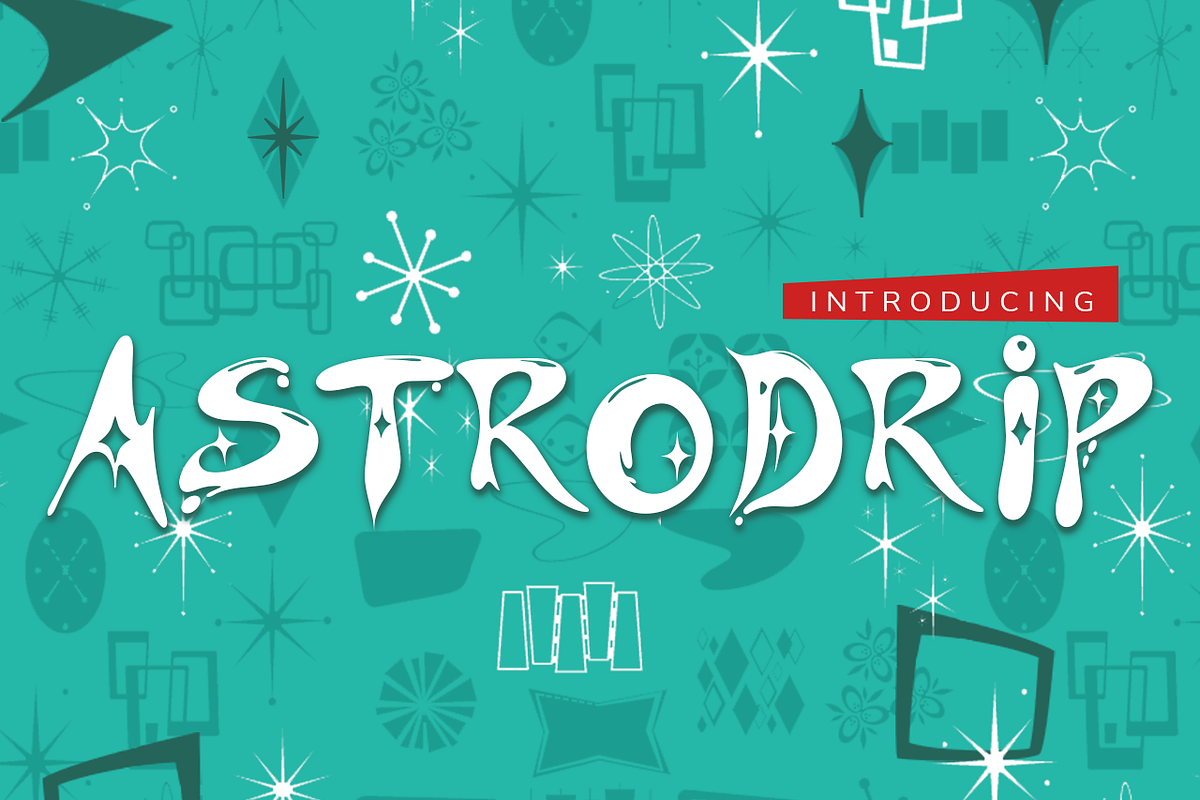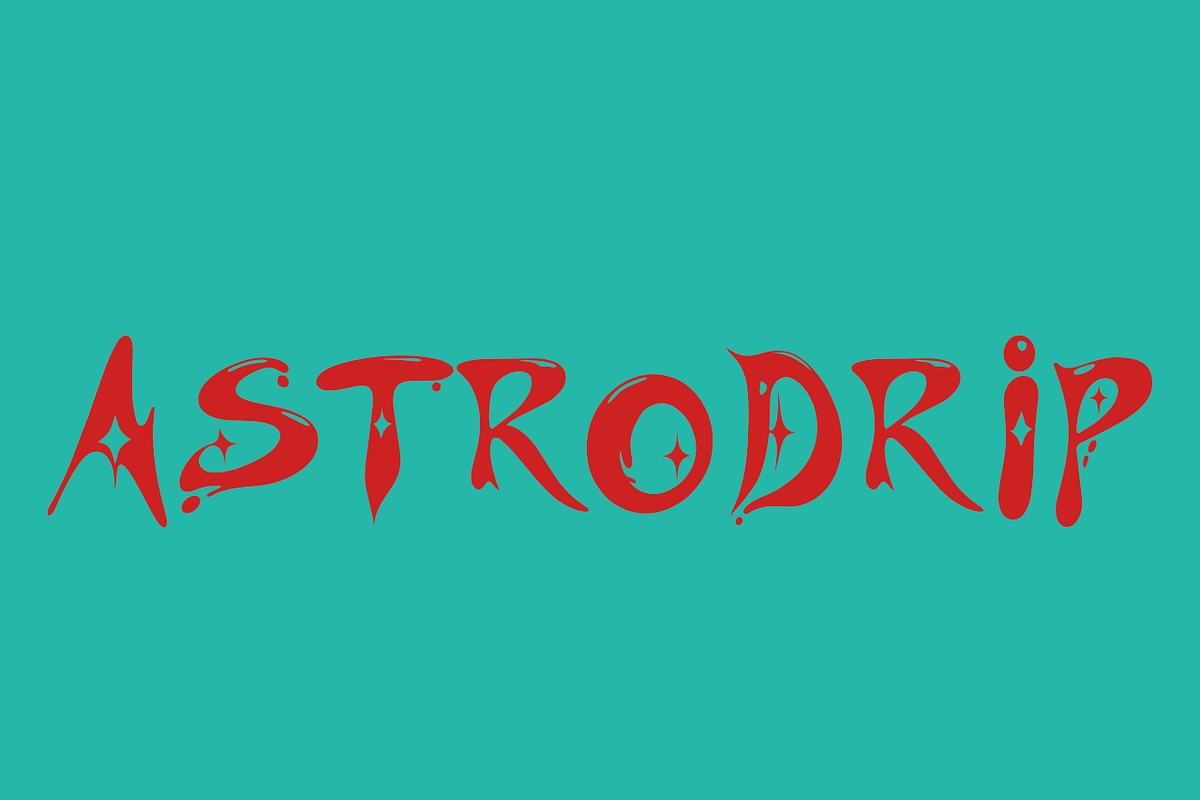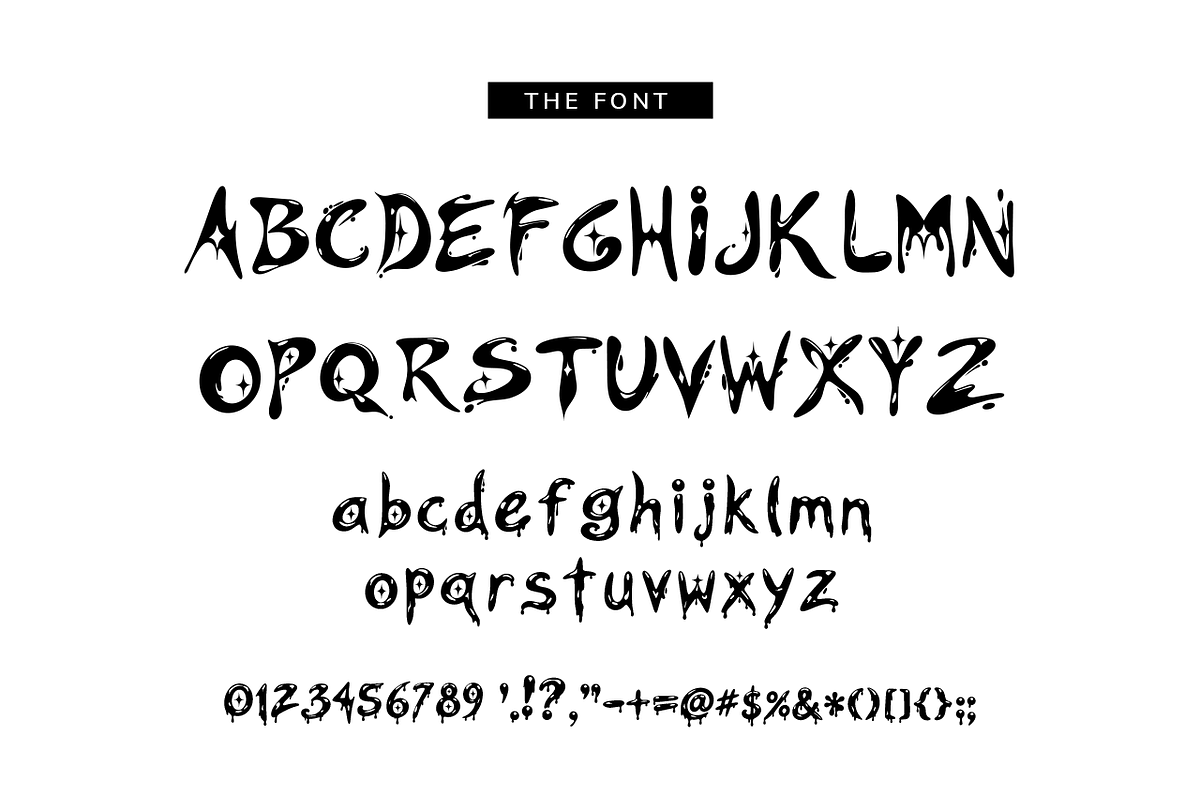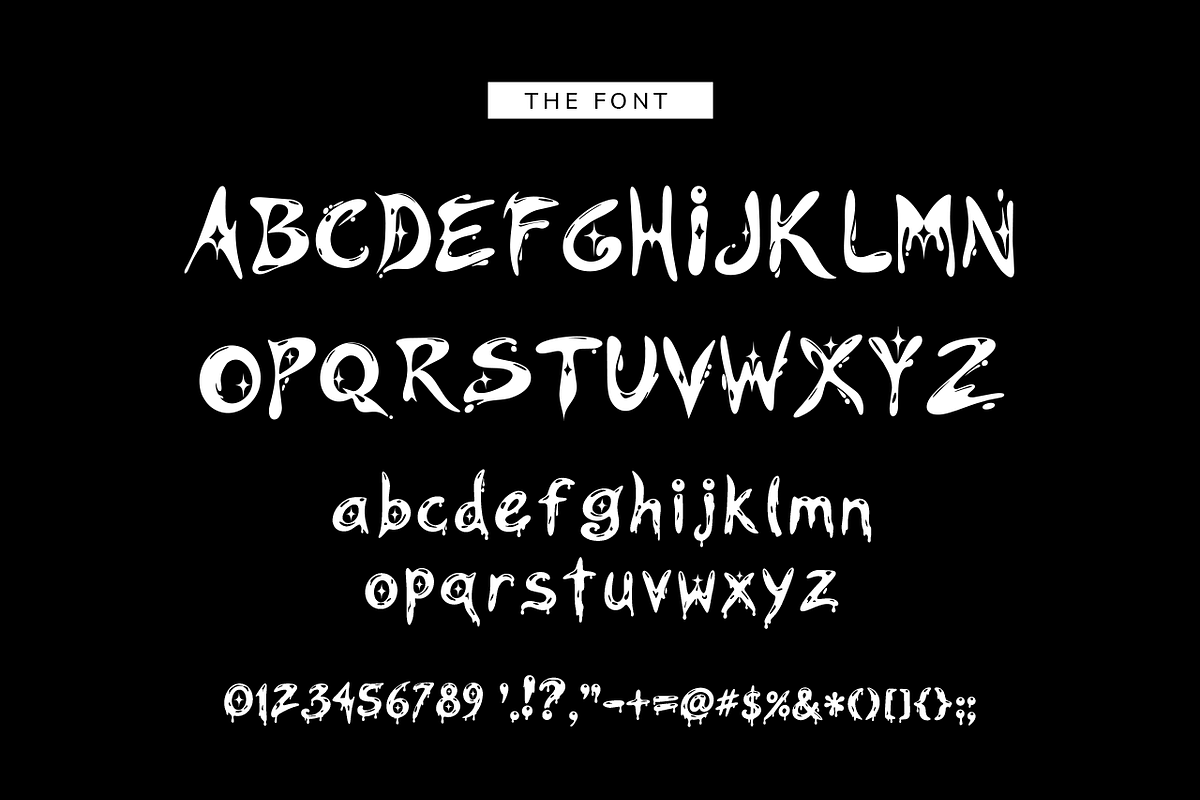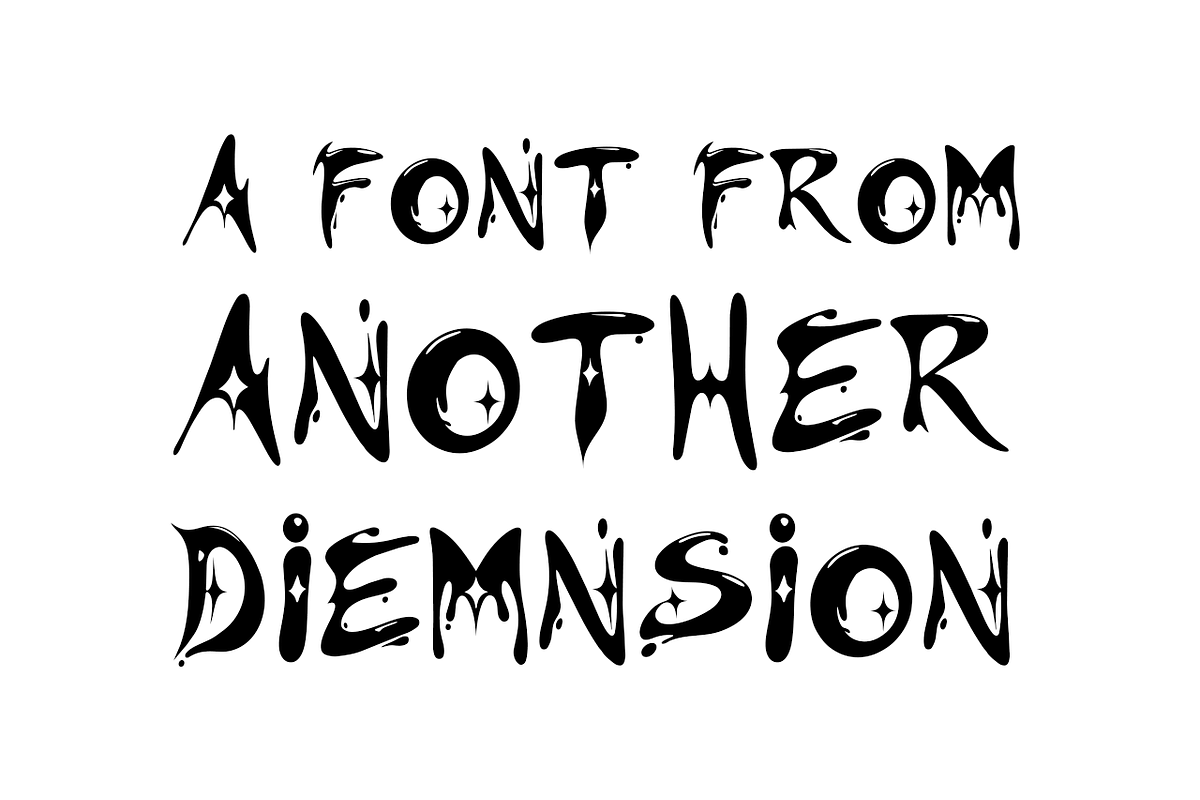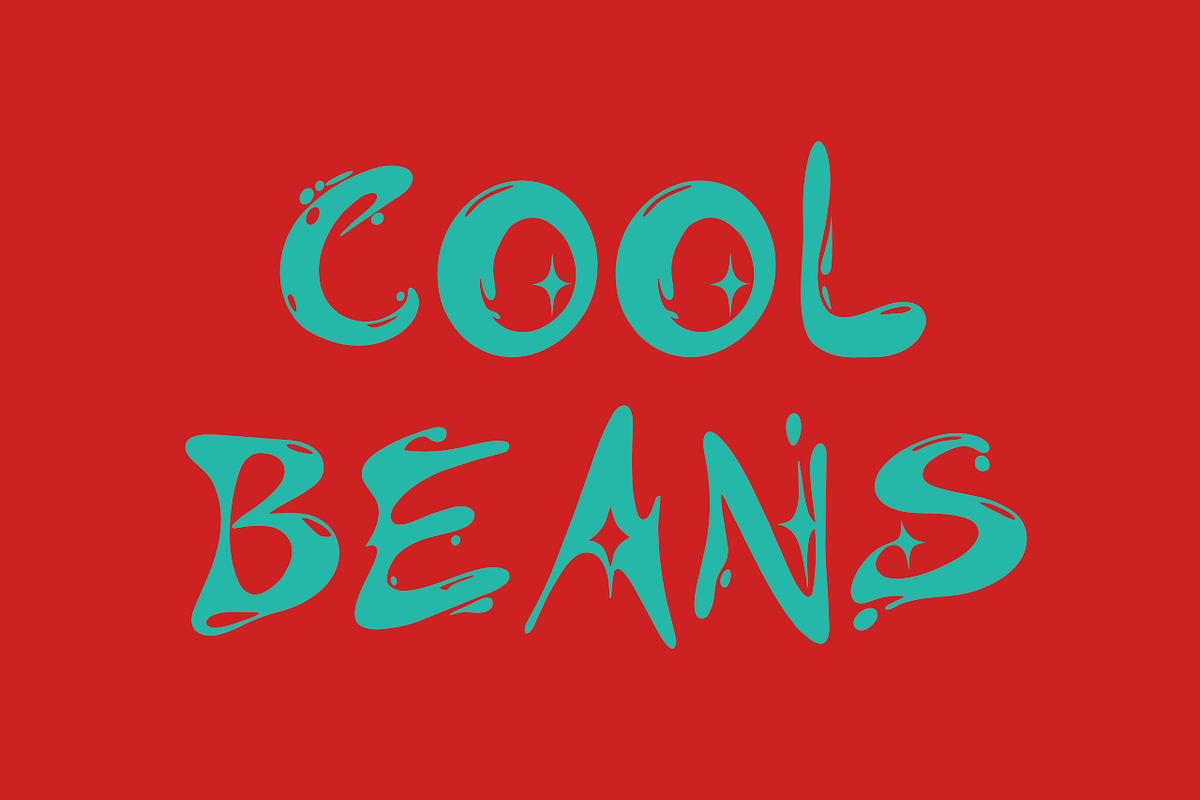
Astrodrip
Astrodrip — An Out-of-This-World Display Font
Prepare for a typography transmission from another galaxy.
Astrodrip is a bold, futuristic display font infused with alien attitude, cosmic energy, and a seriously slick liquid-metal aesthetic. With its unusual organic shapes, sharp extraterrestrial curves, dripping details, and otherworldly personality, Astrodrip is designed to make your words feel like they came straight from a distant planet.
Perfect for sci-fi designs, alien-themed artwork, movie posters, gaming graphics, album covers, logos, merchandise, apparel, stickers, social media graphics, headlines, and attention-grabbing display typography.
Whether you're creating a retro-futuristic space adventure, an intergalactic brand, an alien invasion poster, or something completely weird and wonderful, Astrodrip brings an unmistakably cosmic personality to your designs.
Houston, we have a typeface.
• Uppercase & lowercase alphabet • Numbers & punctuation • Unique futuristic display characters • Liquid-metal / extraterrestrial aesthetic • Ideal for large-scale display typography • Great for posters, branding, apparel, packaging, gaming & more
Astrodrip isn't from around here. And honestly, neither is your typography.